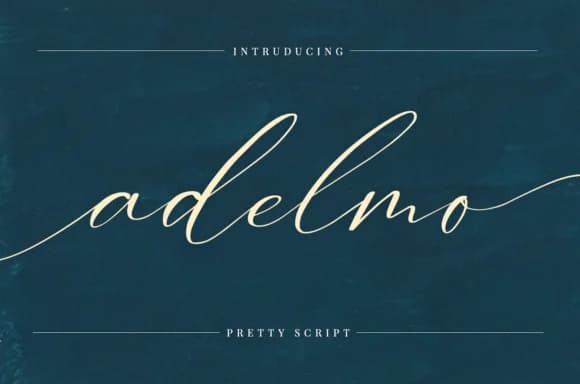
1 / 7About Adelmo Font
Adelmo by it_was_a_good_day is a refined handwritten script that captures the grace of traditional calligraphy without feeling stiff or rigid. The letterforms carry genuine character, with thoughtful proportions and subtle line variation that give the font its distinctive personality. Unlike many scripts that sacrifice legibility for flourish, Adelmo stays readable across different sizes while retaining warmth and a distinctly human touch. This balance between polish and approachability makes it a genuinely useful addition to any designer's toolkit.
The font excels in projects where you want visual sophistication paired with accessibility. Wedding invitation suites gain immediate elegance from Adelmo's balanced forms, while boutique skincare labels and artisan product packaging benefit tremendously from the handcrafted aesthetic. You'll find it perfectly suited to custom greeting cards, scrapbooking layouts, DIY signage for independent shops, and social media graphics that need to feel less corporate and more authentic.
The letterforms maintain clarity even at smaller scales, which opens up additional possibilities for restaurant menus, wine labels, and branded stationery where small text shouldn't sacrifice character or personality. Consider Adelmo for freelance branding projects too, especially when your client wants handwritten appeal without the inconsistency that actual handwriting brings. Find it on Creative Fabrica and see how this subtle script transforms your next project.
Adelmo Font is a script font that shines as a display or heading face. Pair it with a clean sans-serif or serif font for body text β the contrast creates a clear hierarchy while the two styles stay balanced and easy to read.